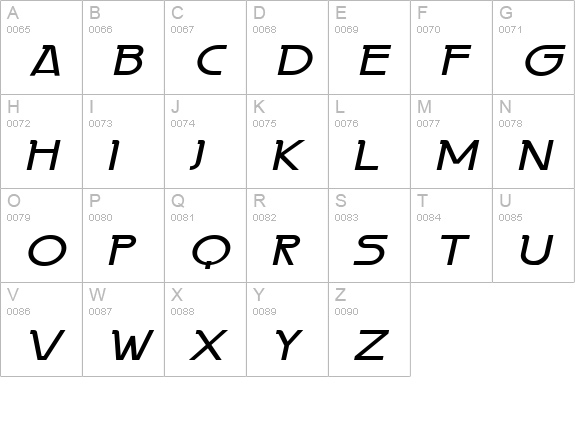
Persia Wide Bold Italic is a strong, high-contrast, extended-width, italic variant in the Persia typeface family \xE2\x80\x94 well suited to headlines, attention-grabbing titles, and strong calls-to-action.
Introducing Persia Wide Bold Italic, a captivating and versatile font that will elevate your designs to new heights of creativity and sophistication. This exquisite font effortlessly combines elegance and modernity, making it the perfect choice for a wide range of projects. With its bold and italicized features, Persia Wide Bold Italic commands attention and adds a touch of drama to any design. Whether you're creating eye-catching headlines, stylish logos, or striking branding materials, this font is sure to leave a lasting impression. The unique and graceful curves of Persia Wide Bold Italic exude a sense of refinement and class, making it ideal for luxury brands, high-end fashion magazines, or upscale product packaging. Its versatility also allows it to be used for more casual designs, such as contemporary websites or trendy social media graphics. What makes Persia Wide Bold Italic even more irresistible is that it is freely available to download at FontsMarket.com. This means that you can easily access this stunning font and enhance your design projects without any hassle or cost. Whether you're a professional designer or a passionate hobbyist, this font is a valuable addition to your typographic arsenal. So why wait? Elevate your designs and captivate your audience with Persia Wide Bold Italic. Download it for free today at FontsMarket.com and unlock the endless possibilities of this remarkable font.